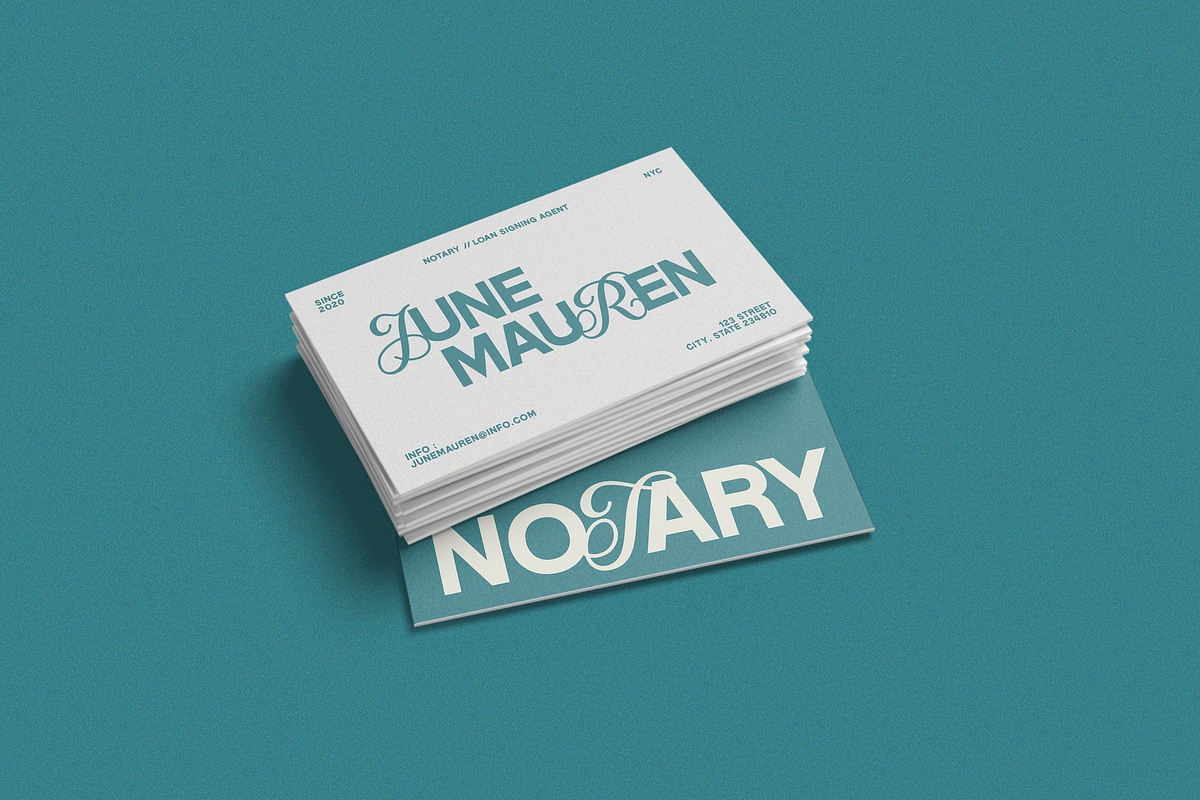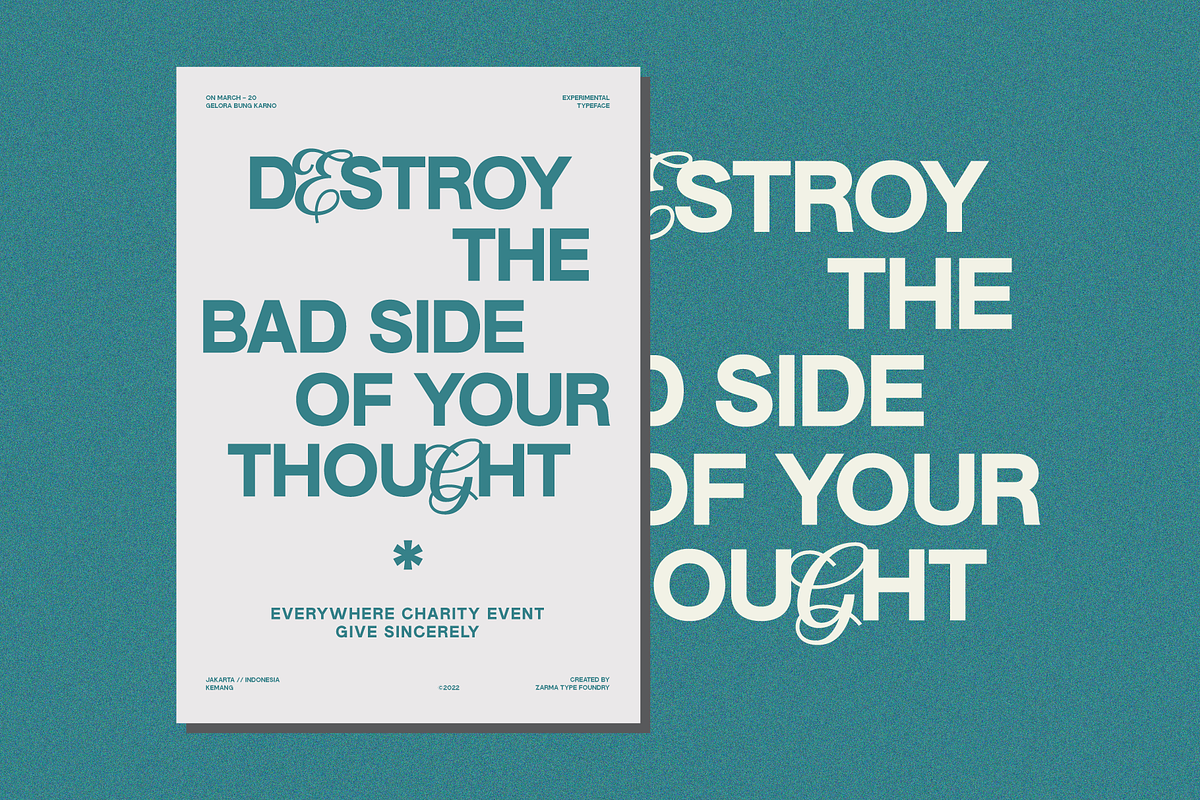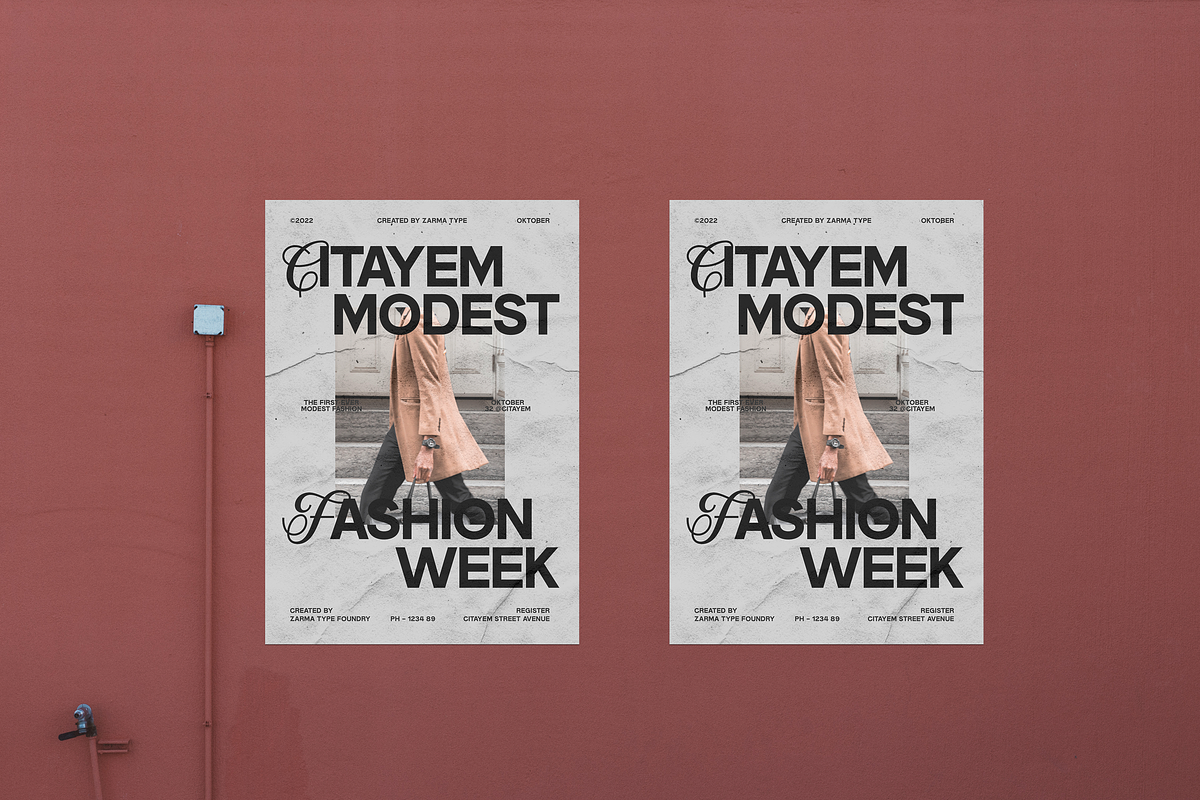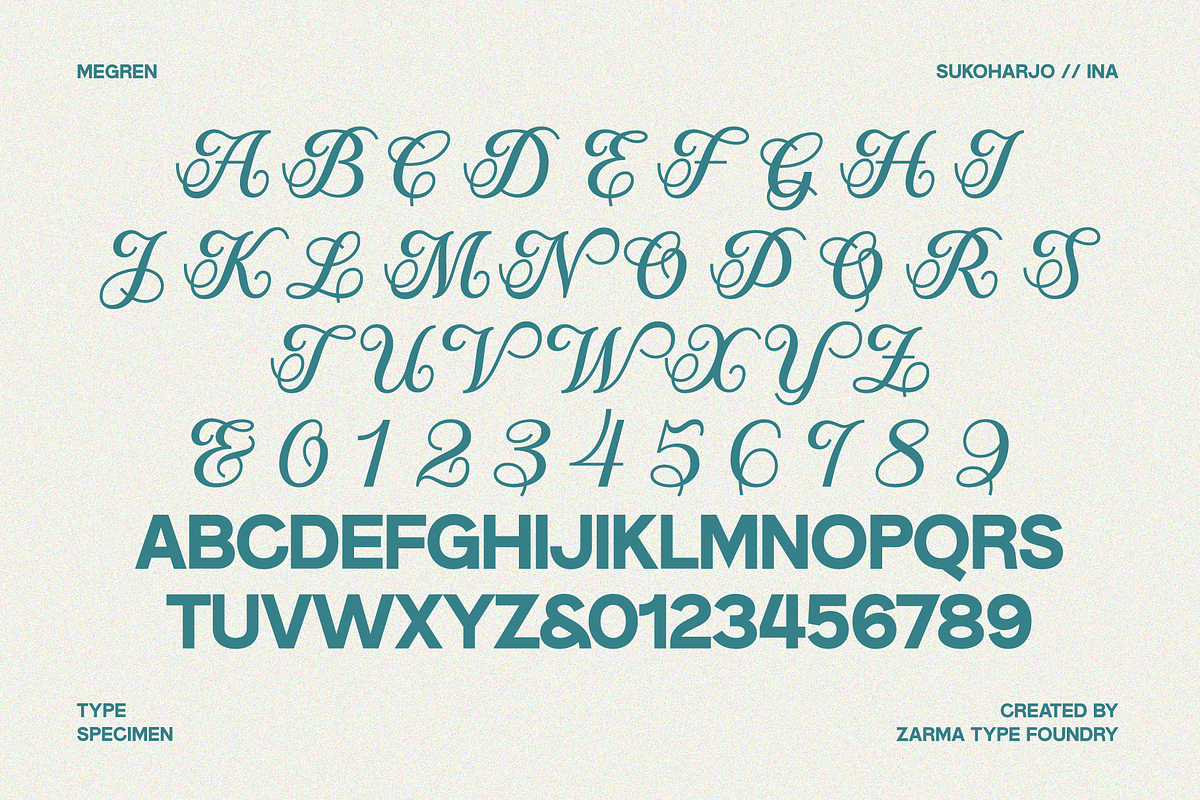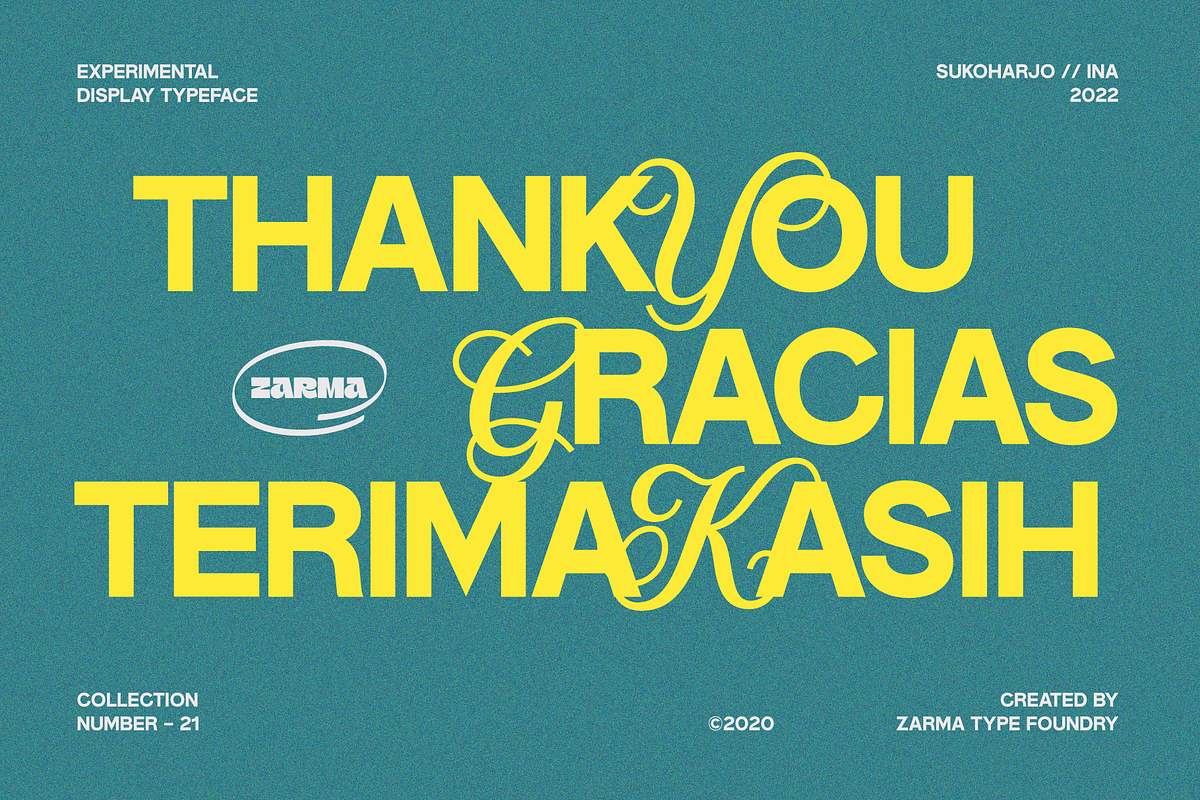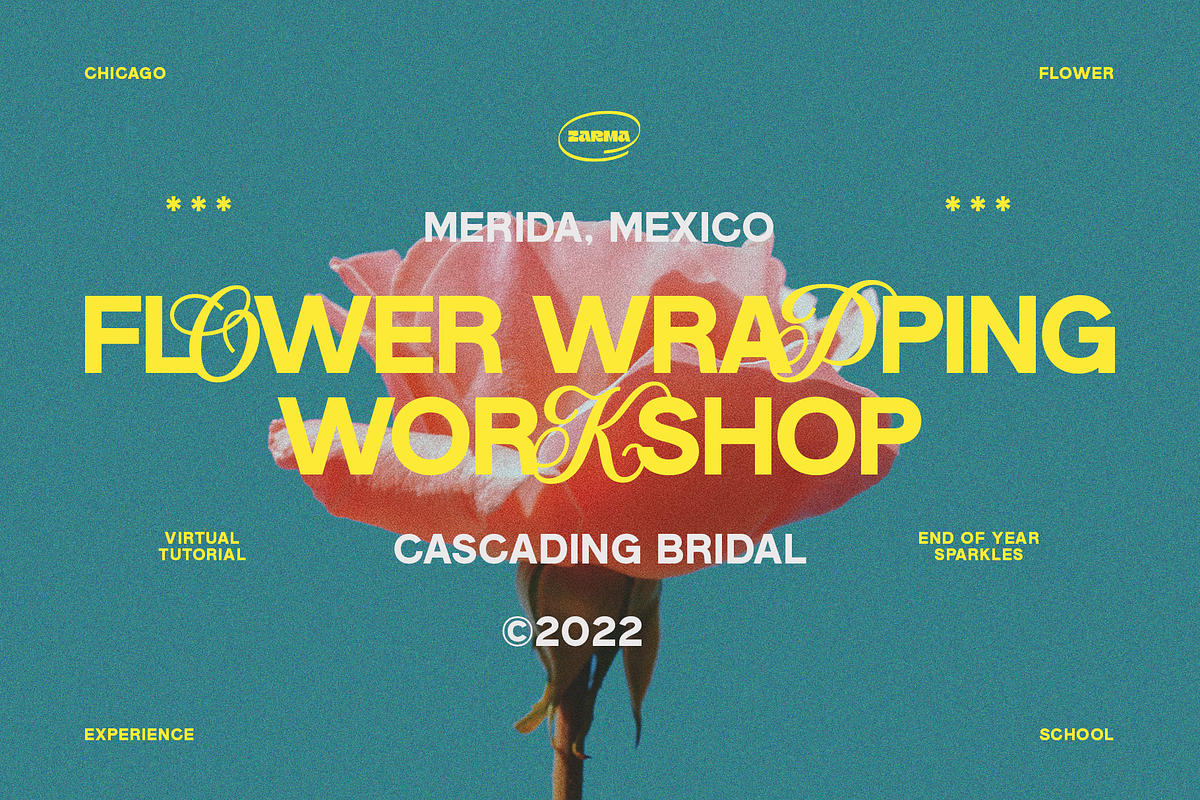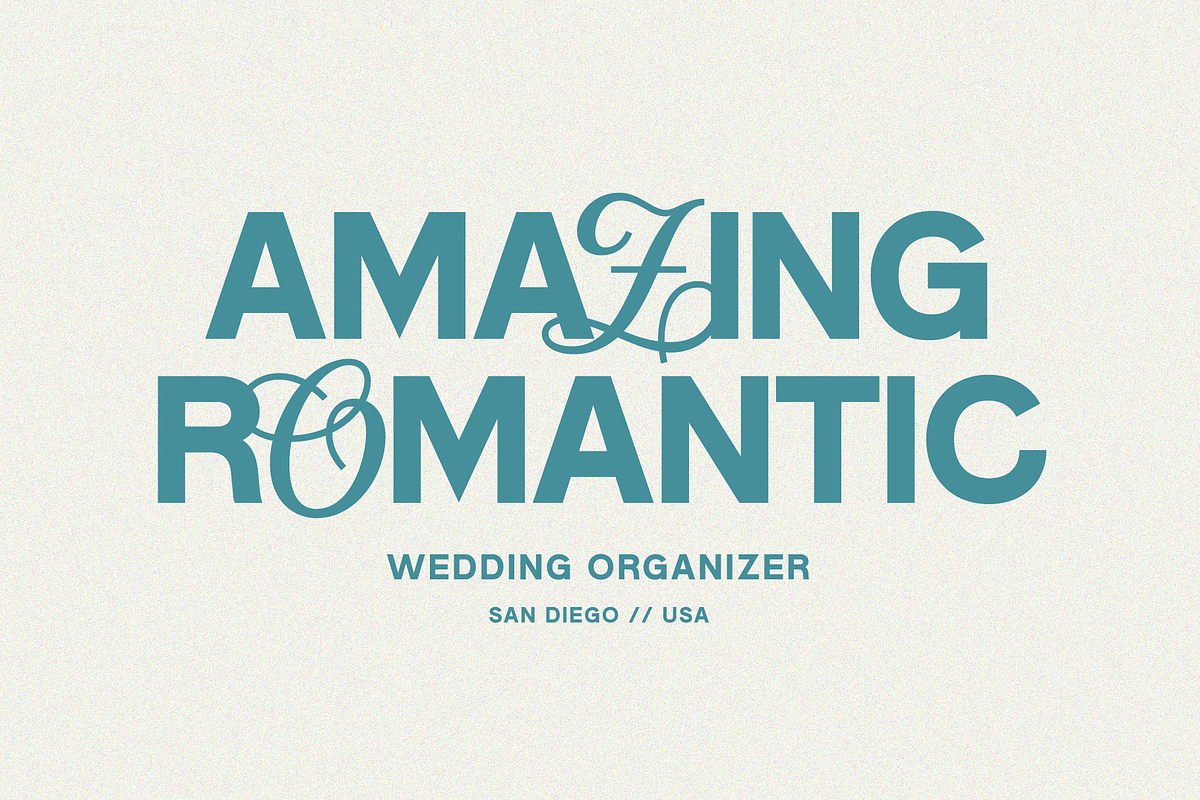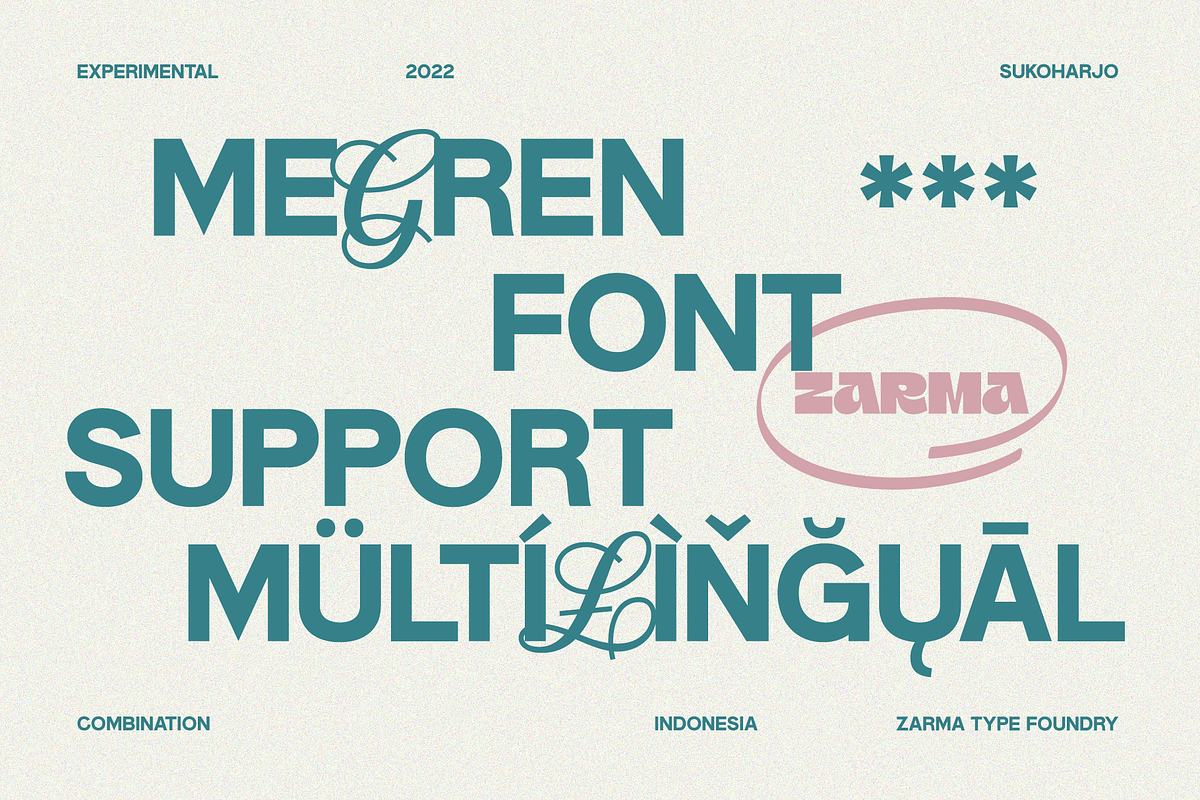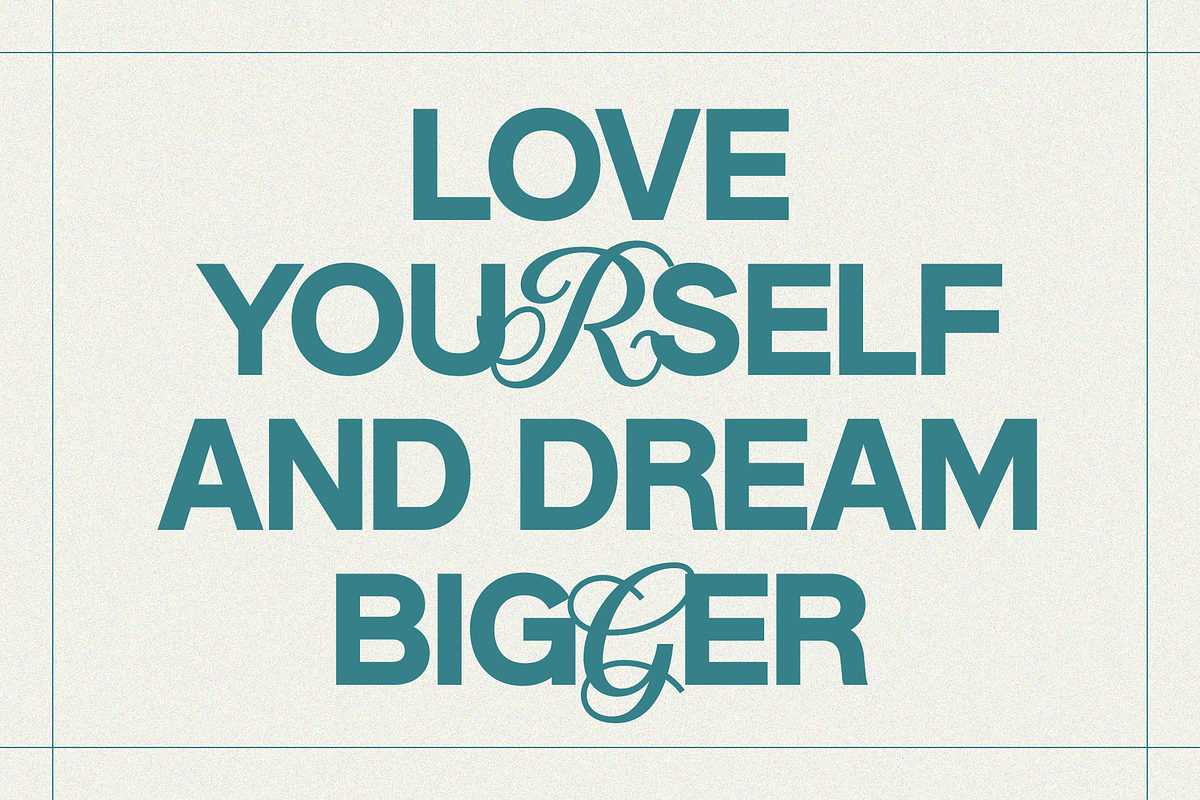
Megren - Combination Font
Introducing Megren, an experimental display typeface combining a simple and clean sans serif typeface with an elegant copperplate script typeface. Consists of 1 font file with copperplate script typeface on the uppercase and sans serif on the lowercase. The combination of different typefaces looks modern and fashionable but also gives a nostalgic retro vibes at the same time.